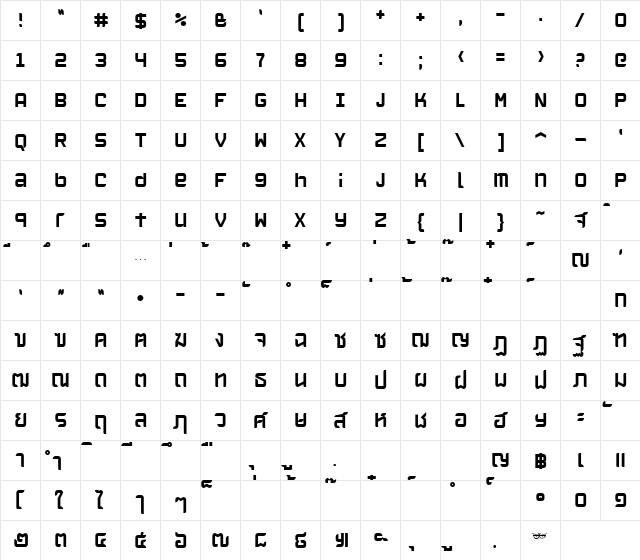
iannnnnPDF 2008 Regular
| Foundry | Prachya Singhto |
| Designer | Prachya Singhto |
Design Context for iannnnnPDF 2008 Typeface
iannnnnPDF 2008 takes a measured approach to typography — its balanced proportions and neutral character make it a reliable workhorse for both digital and print work.